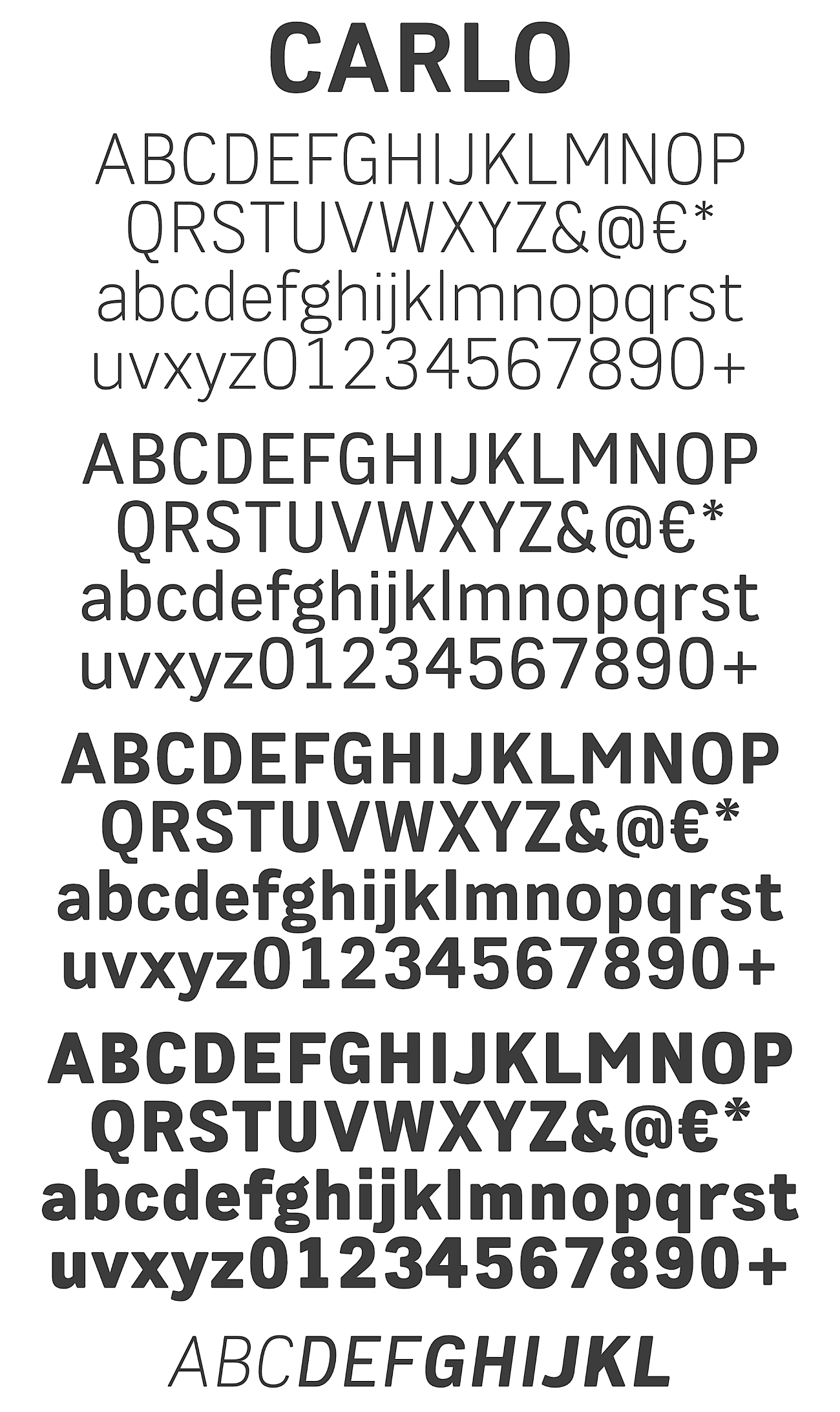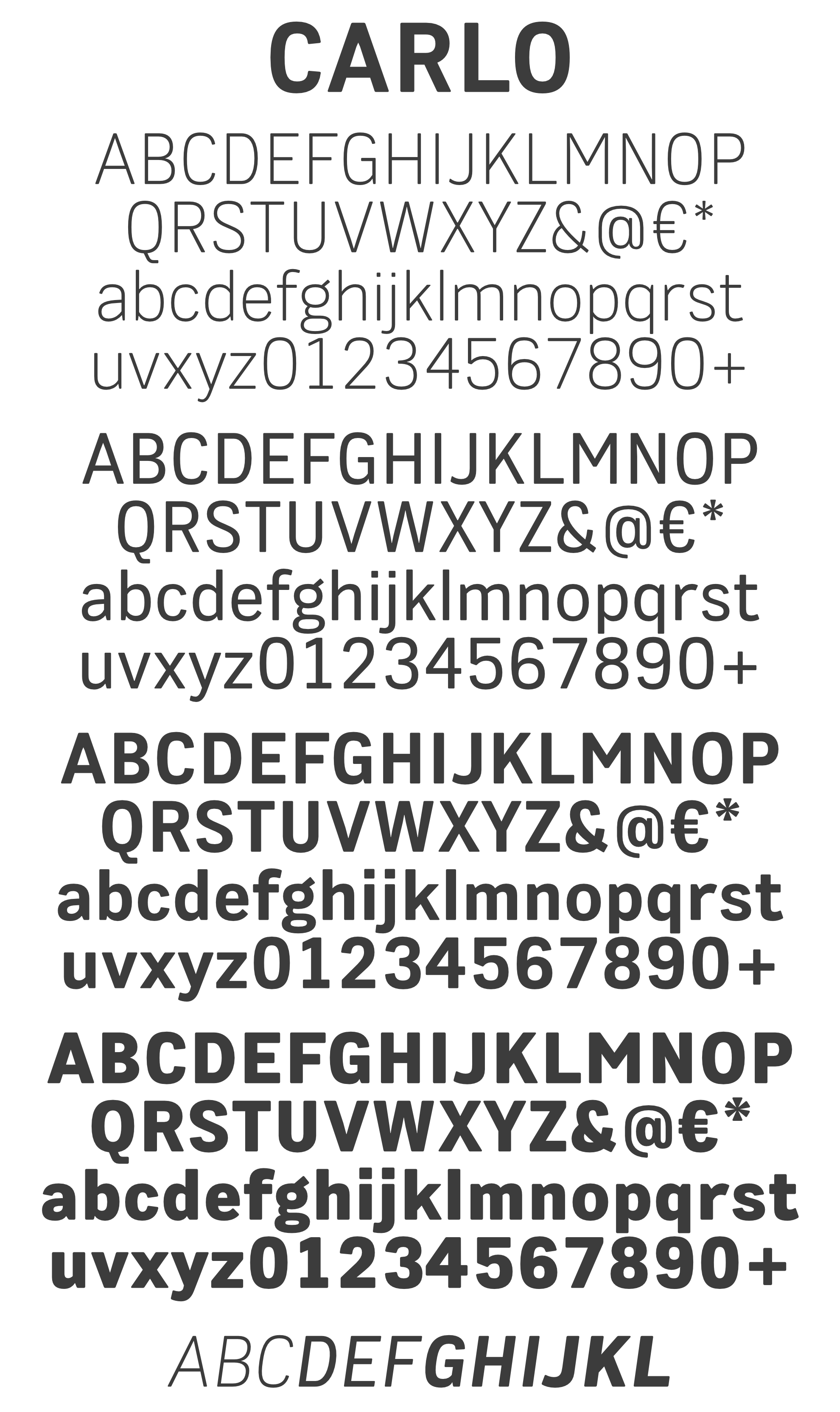
Carlo
Custom Typeface Family
For the German MDS Holding, we developed a custom typeface called Carlo (named after the CEO’s cat). MDS focuses on food and health products, and the goal was to create a typeface with a clean and friendly atmosphere.
The decision to use a custom typeface was not only for aesthetic or marketing reasons: a custom typeface would help identify printed correspondence from one of the company’s many subsidiaries as belonging to MDS, thus preventing counterfeiting.
In order to be able to give the typeface the optimal width in each weight, we based the typeface on a variable typeface. This made it very easy to coordinate in detail with the client, as each weight was intended for different design tasks, each of which had specific requirements for the type width.